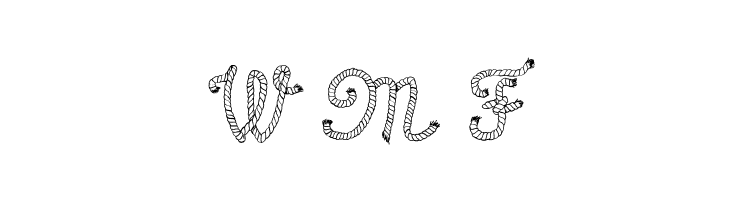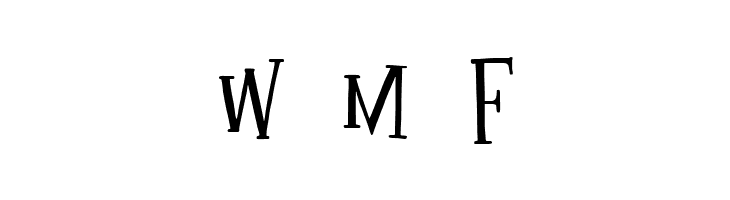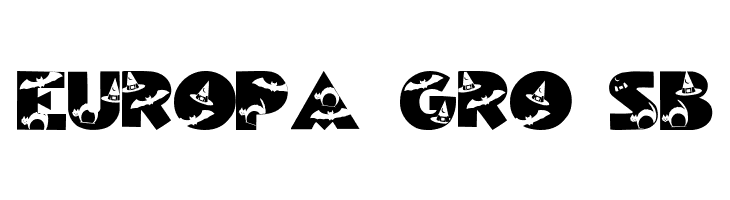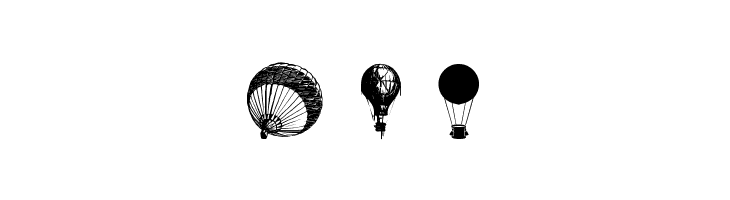
( Rajendra Bitling - www.rbitling.com )
A bold, italic calligraphic font with fluid, interconnected strokes.
( Rajendra Bitling - www.rbitling.com )
A bold, cursive calligraphic font with fluid, interconnected strokes.
( Woodcutter - woodcutter Manero - www.woodcutter.es )
A diverse set of whimsical hot air balloon illustrations in various styles.
( aldedesign - Alde Saputro - creativemarket.com/aldedesign?u=aldedesign )
A graceful calligraphy font with flowing, interconnected strokes and elegant flourishes.
( aldedesign - Alde Saputro - creativemarket.com/aldedesign?u=aldedesign )
An elegant, slanted calligraphy font with graceful lines and artistic flourishes.
A decorative Halloween-themed font with playful and spooky icons.
( Blue Jay Font Studio - katzfonts.50megs.com/bj1.html )
A decorative font with characters embedded in ballerina illustrations.
( Fonts on us )
A decorative font with autumn-themed leaf and tree embellishments.
( Fonts on us )
A spooky, whimsical font with jagged edges, ideal for Halloween themes.
( Holitter Studios )
A dynamic, cursive calligraphy font with expressive strokes and artistic flair.
( Intellecta Design - new.myfonts.com/search/intellecta/fonts/?sort=sales?refby=paulow )
Ornate, hand-drawn calligraphic frames with vintage flair.
( Intellecta Design - new.myfonts.com/search/intellecta/fonts/?sort=sales?refby=paulow )
Ornate hand-drawn calligraphic frames with vintage flourishes.
( JNK Originals - formerly www.jnkoriginals.com, now defunct )
A decorative font with football-themed illustrations integrated into bold, stylized letters.
( Julia Guinto )
A modern, elegant sans-serif font with tall, condensed characters and consistent stroke width.
( Julia Guinto )
A modern serif font with tall, narrow letterforms and subtle serifs.
( Katz Fontz - katzfonts.50megs.com/kg.html )
A whimsical, Halloween-themed font with scarecrow silhouettes and hand-drawn style.
( LJ Design Studios - www.ljdesignstudios.com )
A spooky, decorative font with elongated, twisted forms and gothic swirls.
( London's Letters - www.londonsletters.com/ )
A bold, football-themed font with integrated sports elements.
( London's Letters - www.londonsletters.com/ )
A decorative font with ballet-themed embellishments and elegant flourishes.
( Misti's Fonts - mistifonts.com/ )
A charming calligraphic font with flowing, interconnected letterforms.
( Misti's Fonts - mistifonts.com/ )
A graceful calligraphic font with elegant loops and fluid strokes.
( Misti's Fonts - mistifonts.com/ )
A playful, rounded font with a hand-drawn, balloon-like appearance.
( Misti's Fonts - mistifonts.com/ )
An elegant calligraphy font with fluid, interconnected strokes and ornate flourishes.
( Misti's Fonts - mistifonts.com/ )
An elegant calligraphic font with ornate uppercase and smooth lowercase letters.
( Mouser Fonts - www.mouserfonts.com/ )
A classic calligraphic font with elegant, flowing strokes and traditional style.
( Open Window )
A dynamic, calligraphy-inspired font with fluid strokes and elegant design.
( Plan Nine Design - formerly at www.pangea.ca/~nine/andrew/inside/type.html )
A playful, spooky handwritten font ideal for Halloween themes.
A playful, rope-textured calligraphic font with intricate details.
A playful, handwritten font with a comic, balloon-like style.
A sleek, modern font with tall, narrow letterforms and consistent thin strokes.
( Fonts by Olex Studio )
A whimsical, hand-drawn serif font with tall, narrow letterforms.
( Fonts by Lettersiro Studio )
A playful, balloon-like font with bold, rounded characters.